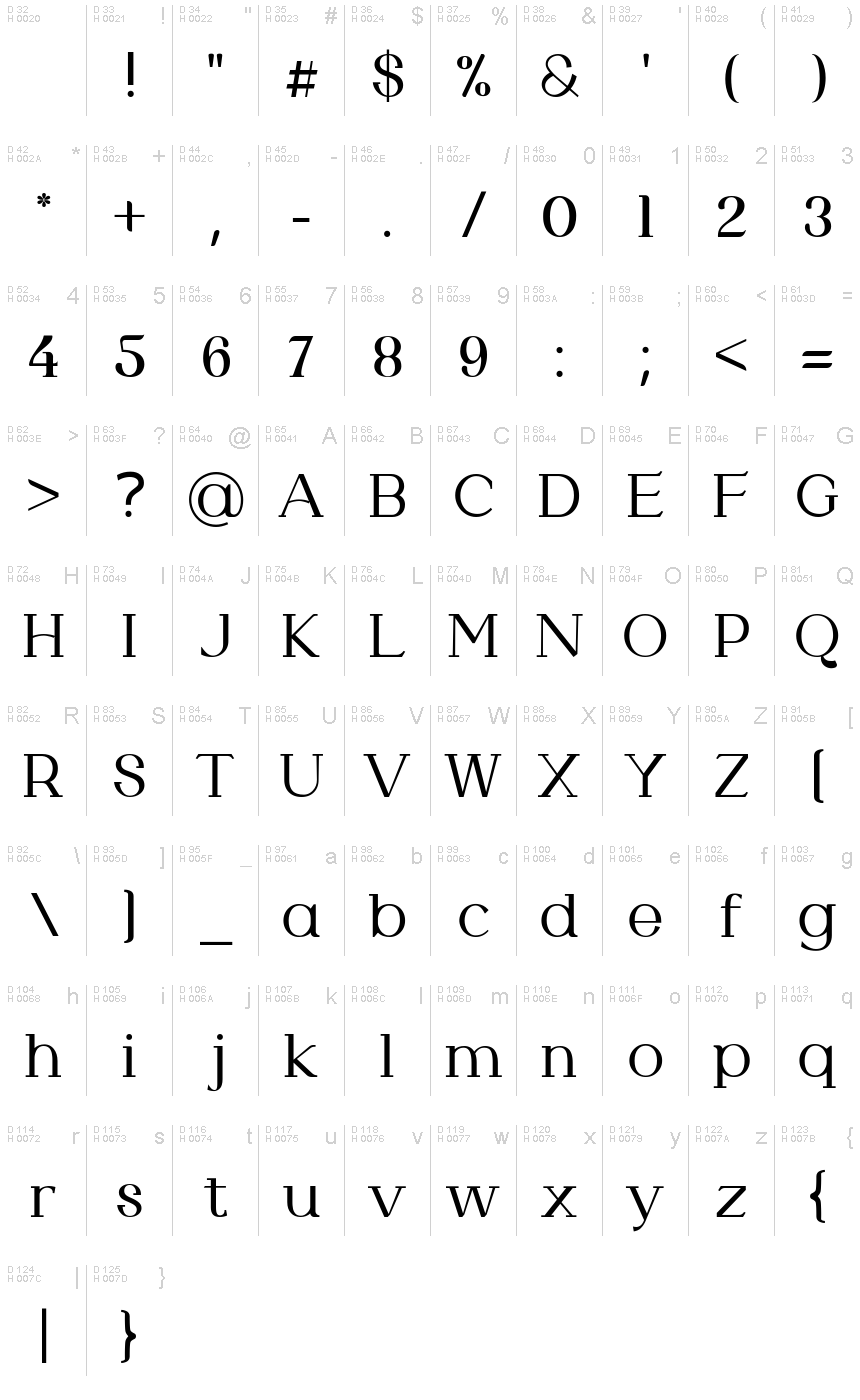
Royal Agustine
Royal Augustine is a modern serif font designed by UI Creative. Its elegant and refined aesthetic exudes a sense of timeless sophistication. The delicate stroke contrast and subtle calligraphic flourishes lend a touch of artistry, while the clean, geometric letterforms convey a contemporary sensibility. This harmonious blend of traditional and modern influences creates a font that captivates with its refined beauty and versatile appeal.
Royal Augustine's versatility makes it a compelling choice for a wide range of design applications. Its refined elegance lends itself beautifully to high-end branding, editorial layouts, and luxury product packaging. The font's legibility and adaptability also make it a practical selection for digital interfaces, signage, and printed collateral. Whether you seek to elevate your design with a touch of timeless sophistication or establish a distinguished visual identity, Royal Augustine by UI Creative delivers a compelling typographic solution.